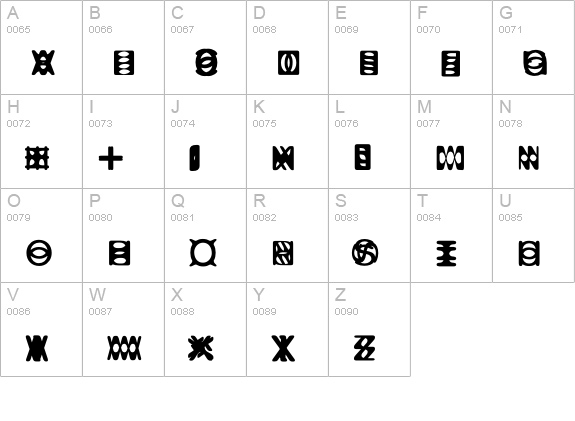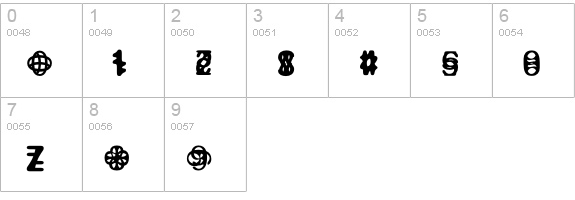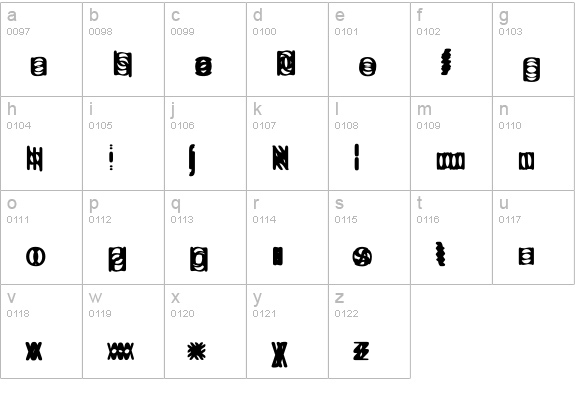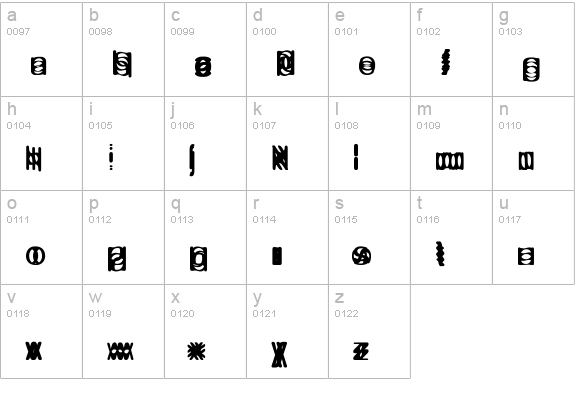
Ritual-Two Font Details
Ritual-Two font is a stunning and versatile typeface that combines elegance with a modern and edgy appeal. With its sleek lines and unique curves, this font is perfect for a wide range of design projects, from branding to advertising to social media graphics. Its clean and sophisticated look makes it ideal for creating a polished and professional image. What sets Ritual-Two font apart is that it is not only visually striking, but also free to download. That's right - you can easily access this beautiful font at FontsMarket.com without any cost. Whether you're a designer looking to add a fresh new font to your collection or a business owner in need of a stylish typeface for your marketing materials, Ritual-Two font is the perfect choice. Download Ritual-Two font today and elevate your designs with its contemporary aesthetic and timeless appeal. Let your creativity shine with this eye-catching and elegant typeface that is sure to make a lasting impression.